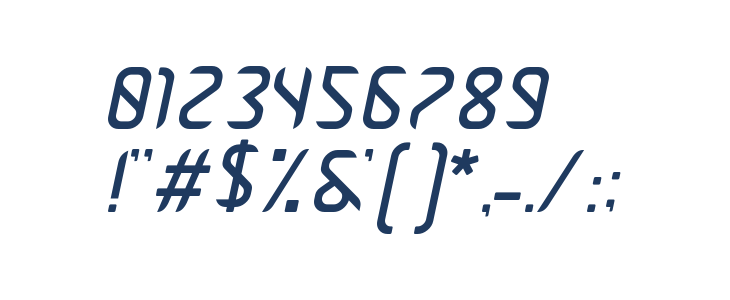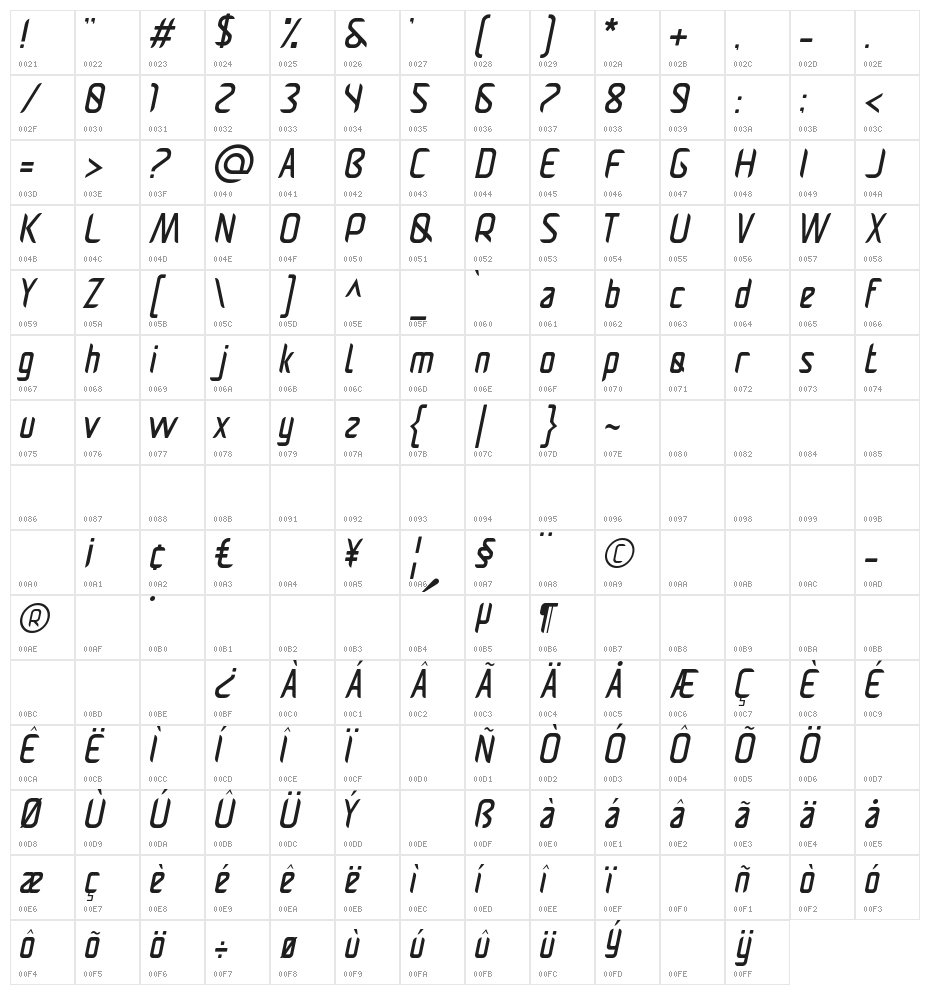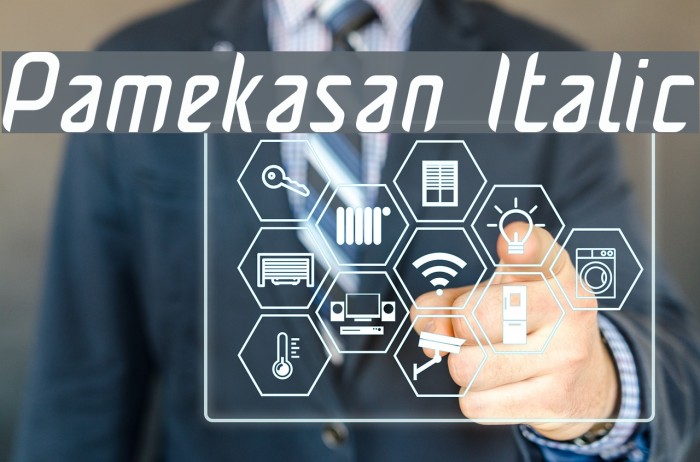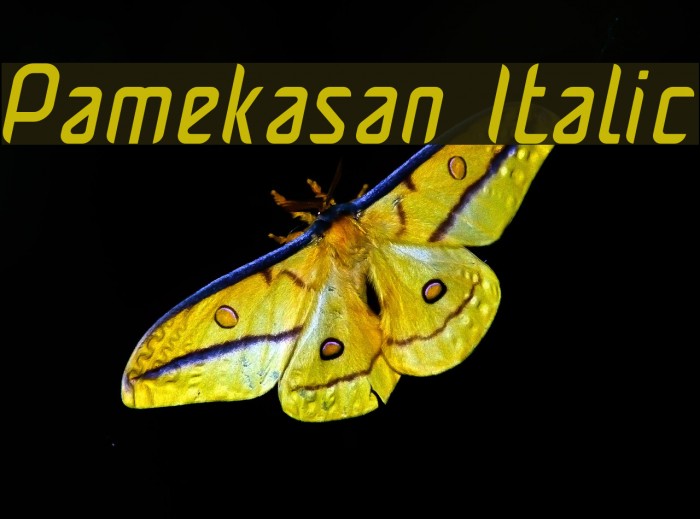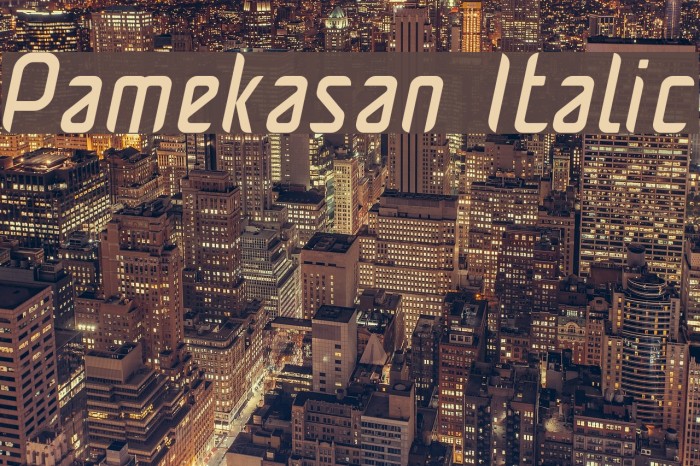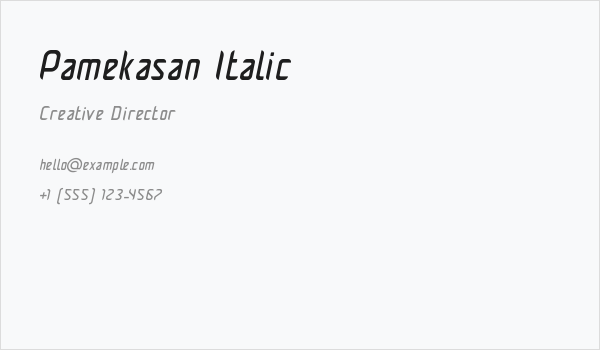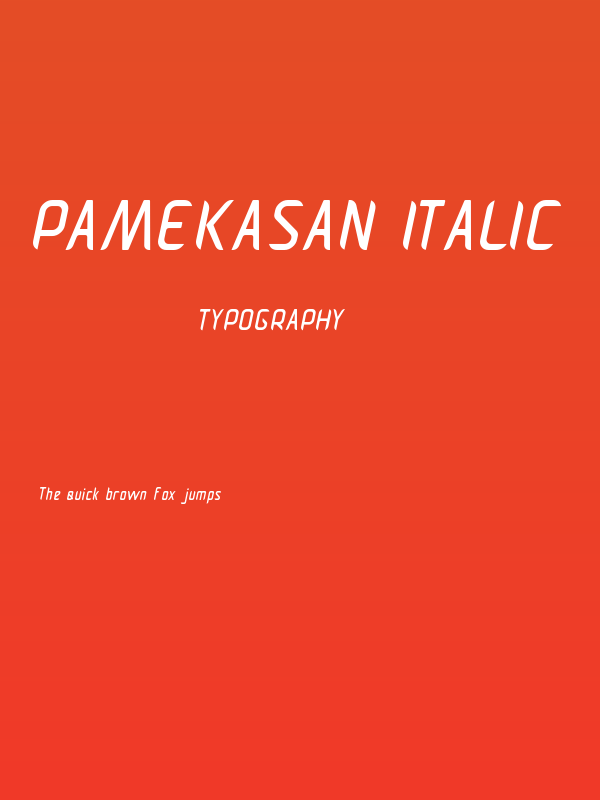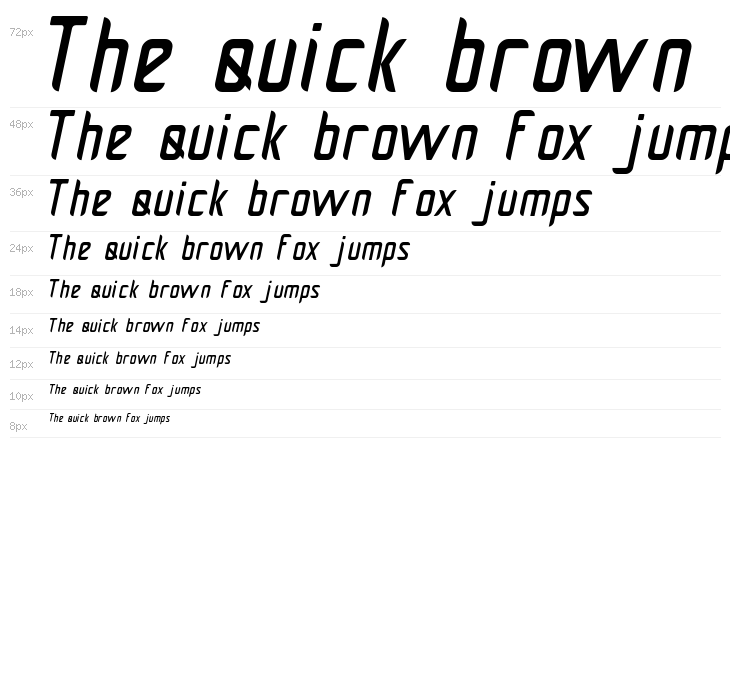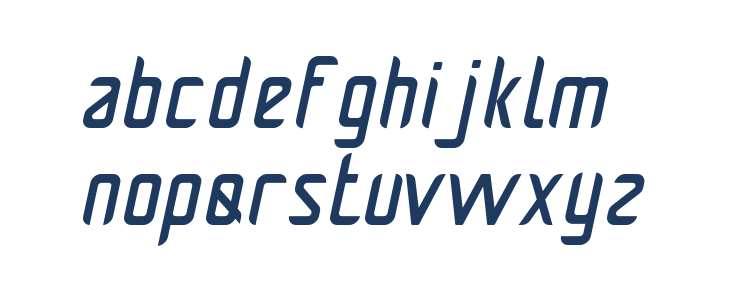
Pamekasan Italic Font
Pamekasan Italic Description
This font features a sleek, modern design with a slight italic slant, giving it a dynamic and forward-moving appearance. The characters are well-defined with a consistent stroke width, providing a clean and uniform look. The uppercase letters are bold and commanding, while the lowercase letters maintain a smooth flow, enhancing readability. The numerals are distinct and easy to distinguish, making them suitable for various applications. Special characters are included, adding versatility to the font's use. Overall, this font combines modern aesthetics with functionality, making it ideal for contemporary design projects.